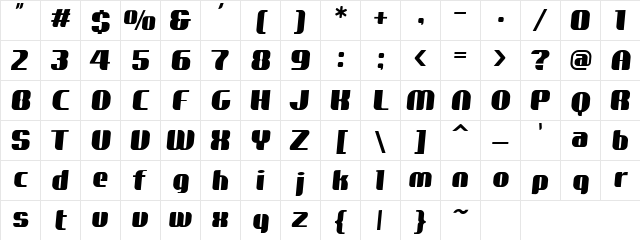
Camellia ExtraBold
Design Context for Camellia Typeface
Camellia takes a measured approach to typography — its balanced proportions and neutral character make it a reliable workhorse for both digital and print work. The heavy weight commands attention and anchors typographic hierarchies.